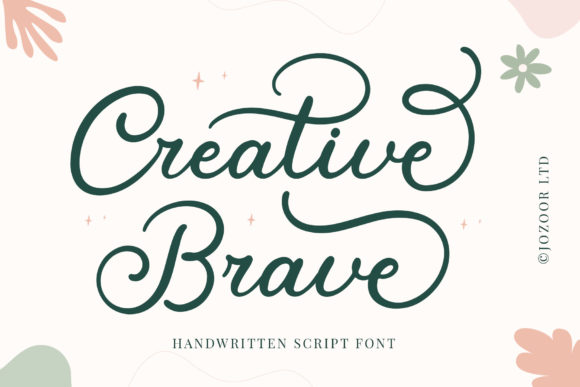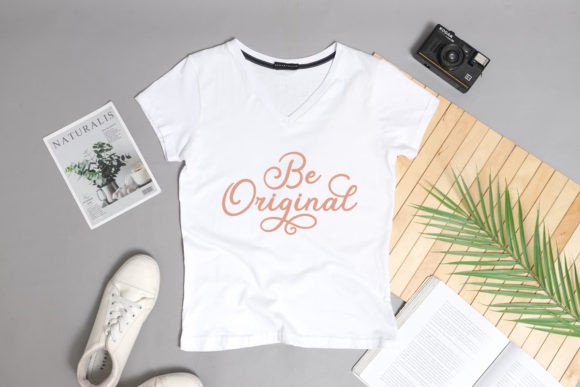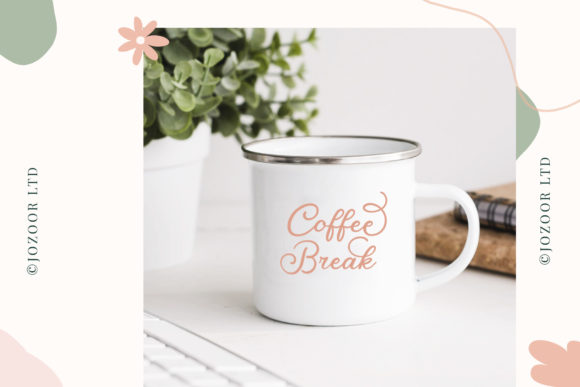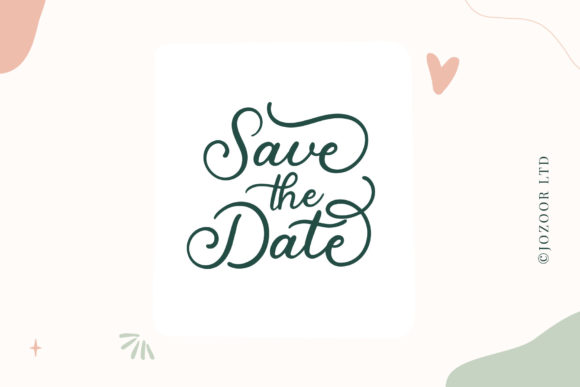
Creative Brave Font: Vintage Script for Elegant Logo Design
About the Creative Brave Font
Presenting Creative Brave Font, a unique and stylish typeface that will make your work stand out. Creative Brave is a stylish, delicate, vintage, and flowing handwritten script font. It has beautiful and well-balanced characters and as a result, it matches a wide pool of designs. This font is PUA encoded which means you can access all of the glyphs and swashes with ease!
Creative Brave’s delicate nature makes it ideal for projects requiring a touch of vintage charm and elegance, such as wedding invitations, logos for boutiques, or packaging for artisanal products. Its flowing script works beautifully in headlines, short quotes, and watermarks, adding a sense of sophistication. However, its low x-height and intricate swashes make it unsuitable for body text or UI elements where readability is paramount.
Pair Creative Brave with a clean sans-serif like Montserrat for a modern contrast, or a classic serif such as Garamond for a more traditional feel. A geometric sans-serif like Futura could also create a striking juxtaposition, enhancing Creative Brave’s inherent elegance. Avoid pairing it with other script fonts as this risks muddling readability.
The overall personality of Creative Brave is sophisticated yet approachable; elegant and friendly, with a hint of vintage flair. It’s best suited for brands that want to convey a sense of quality, craftsmanship, and timeless style.
Creative Brave Font Usage Examples
Creative Brave Font Example